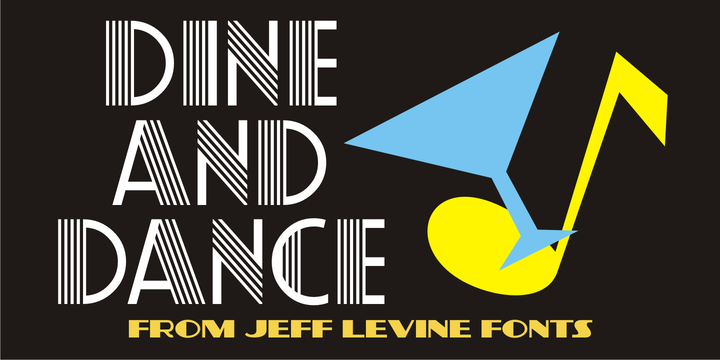
Dine And Dance JNL
by Jeff Levine
The Dine And Dance JNL Font Family was designed by Jeff Levine and published by Jeff Levine. Dine And Dance JNL contains 1 styles. More about this family
Sheet music featuring a song from the 1933 film "Torch Singer" starring Claudette Colbert was the basis for Dine and Dance JNL. A multi-line Art Deco design, it epitomizes both the typographic style and the night life of the time, when supper clubs featuring big bands were at their peak. Torch Singers were female vocalists who typically sang melancholy love songs of lost love and heartbreak.
Designers: Jeff Levine
Foundry: Jeff Levine